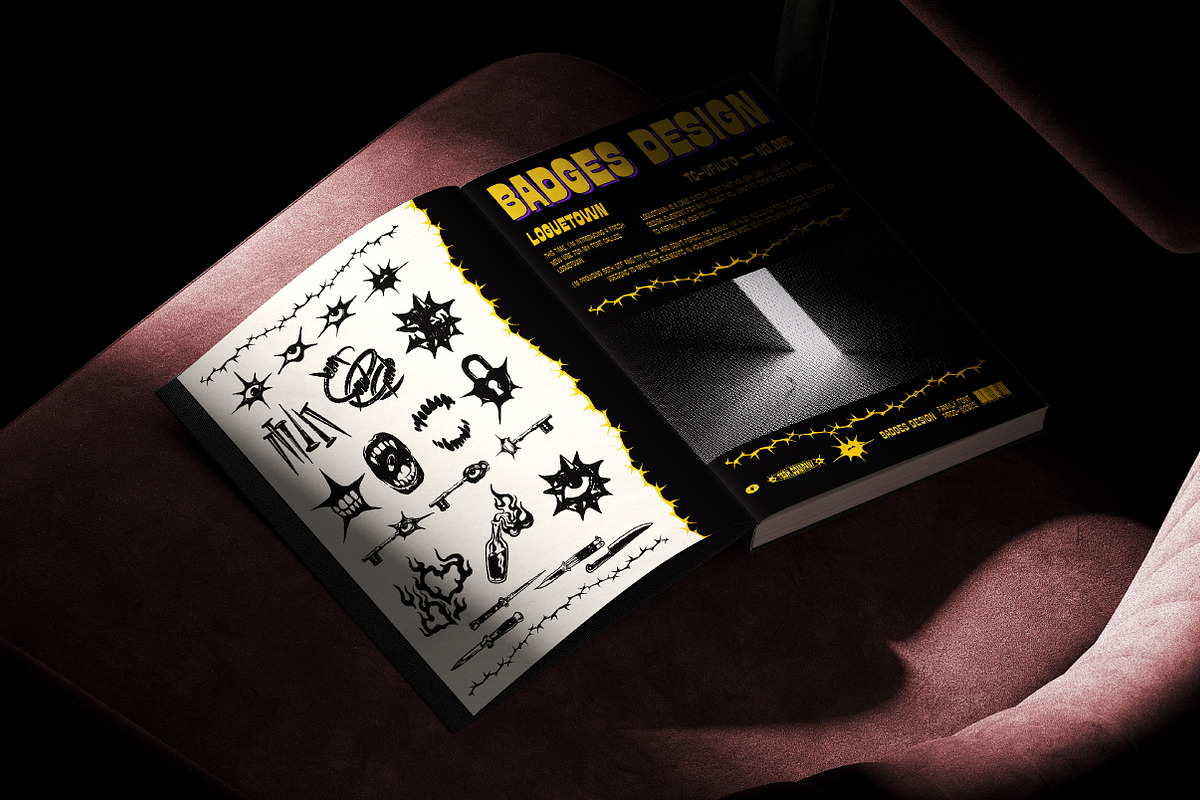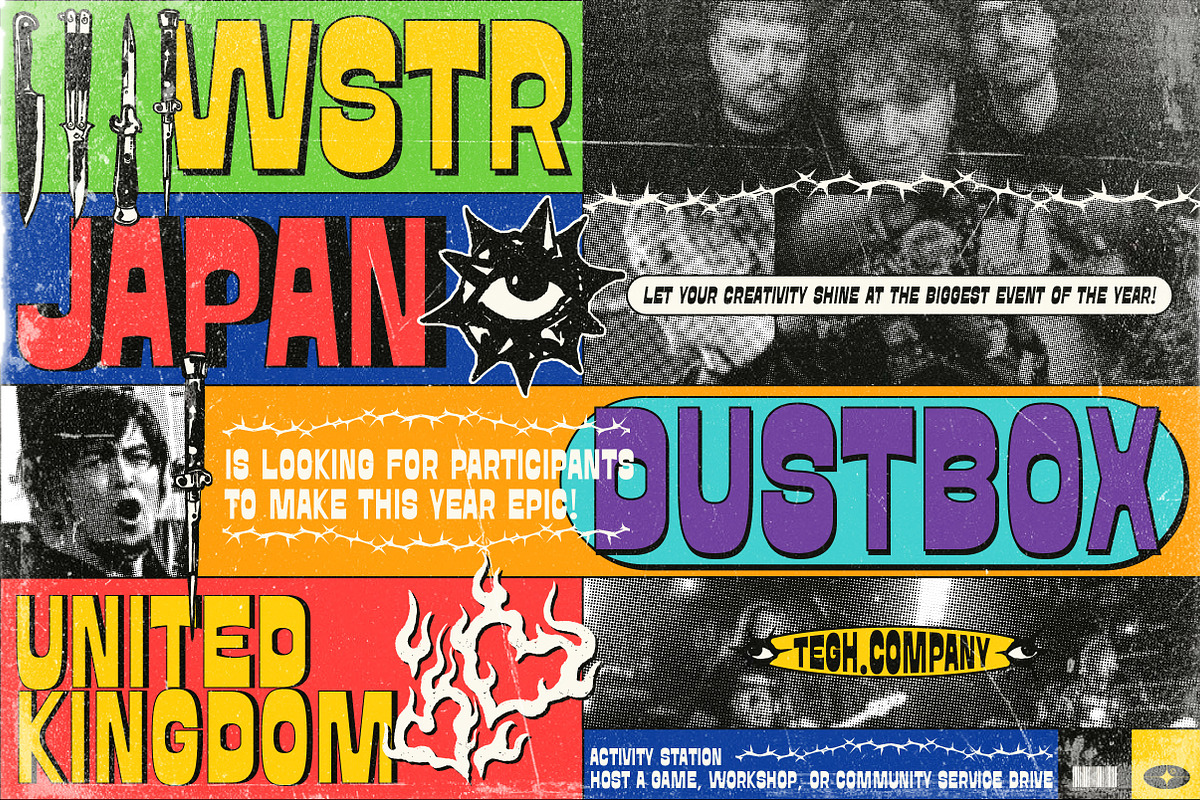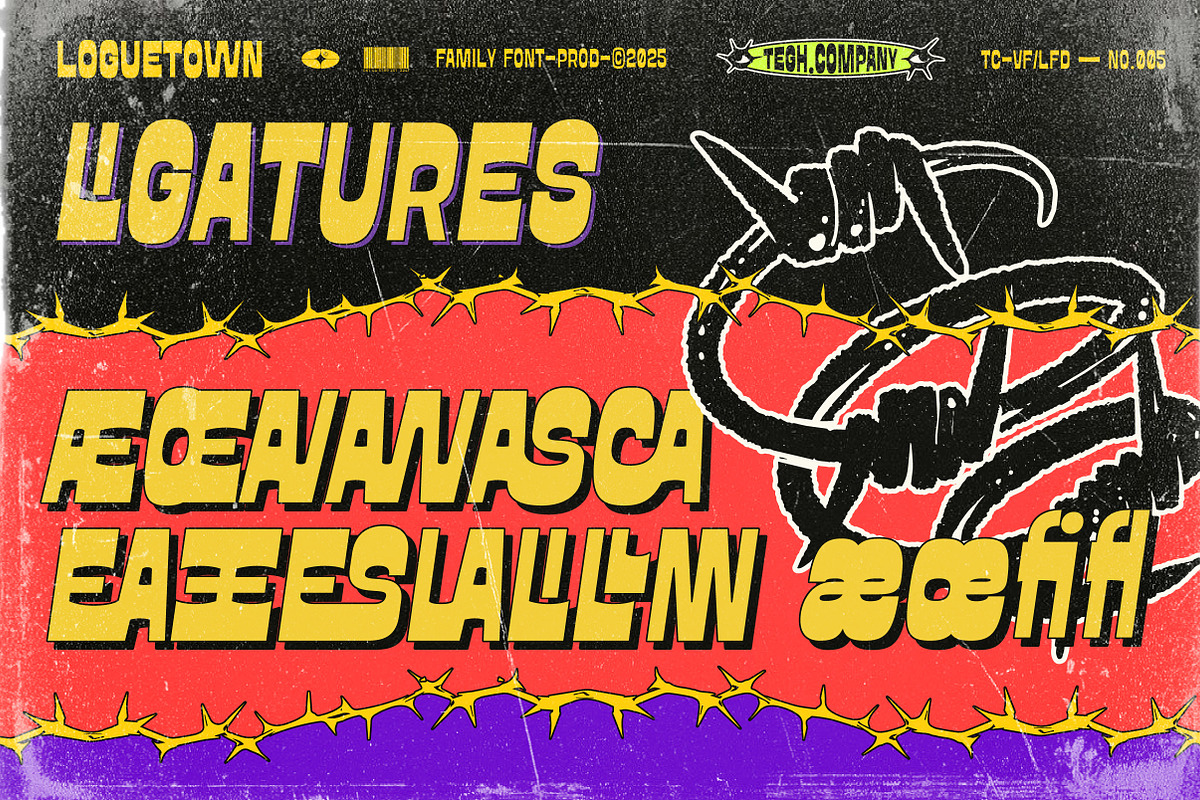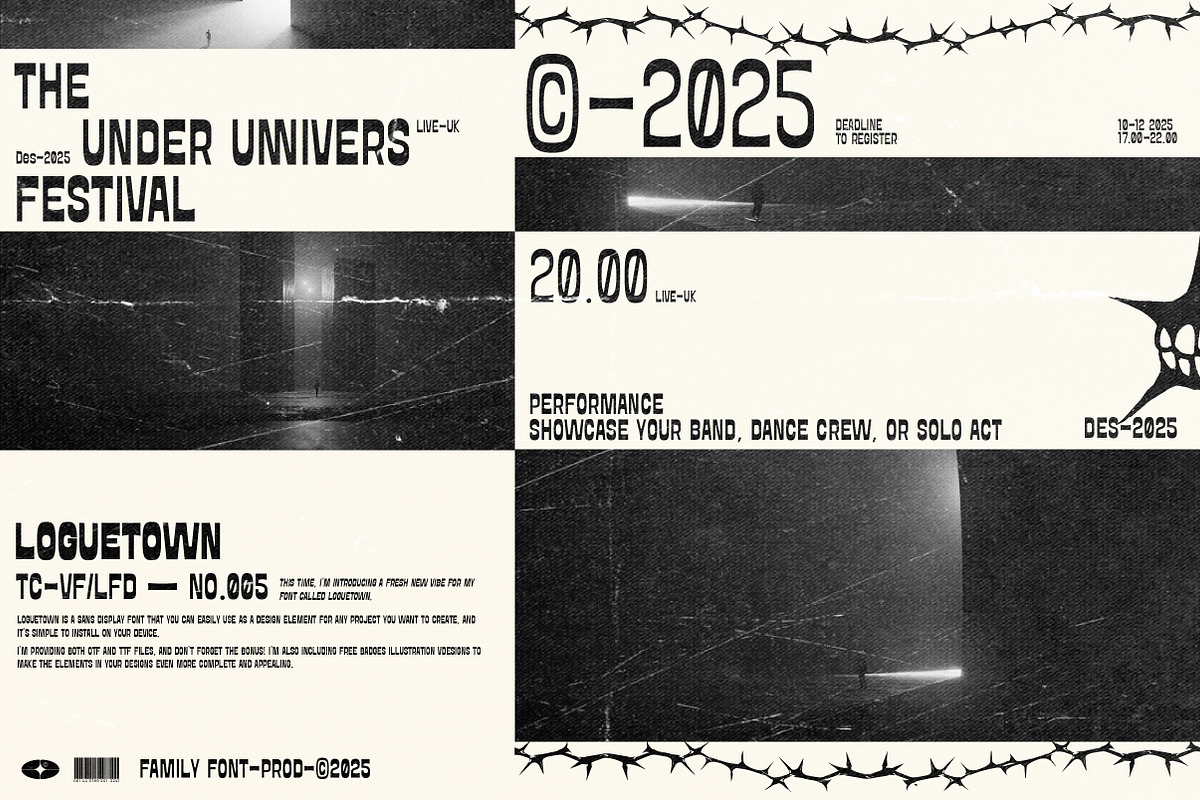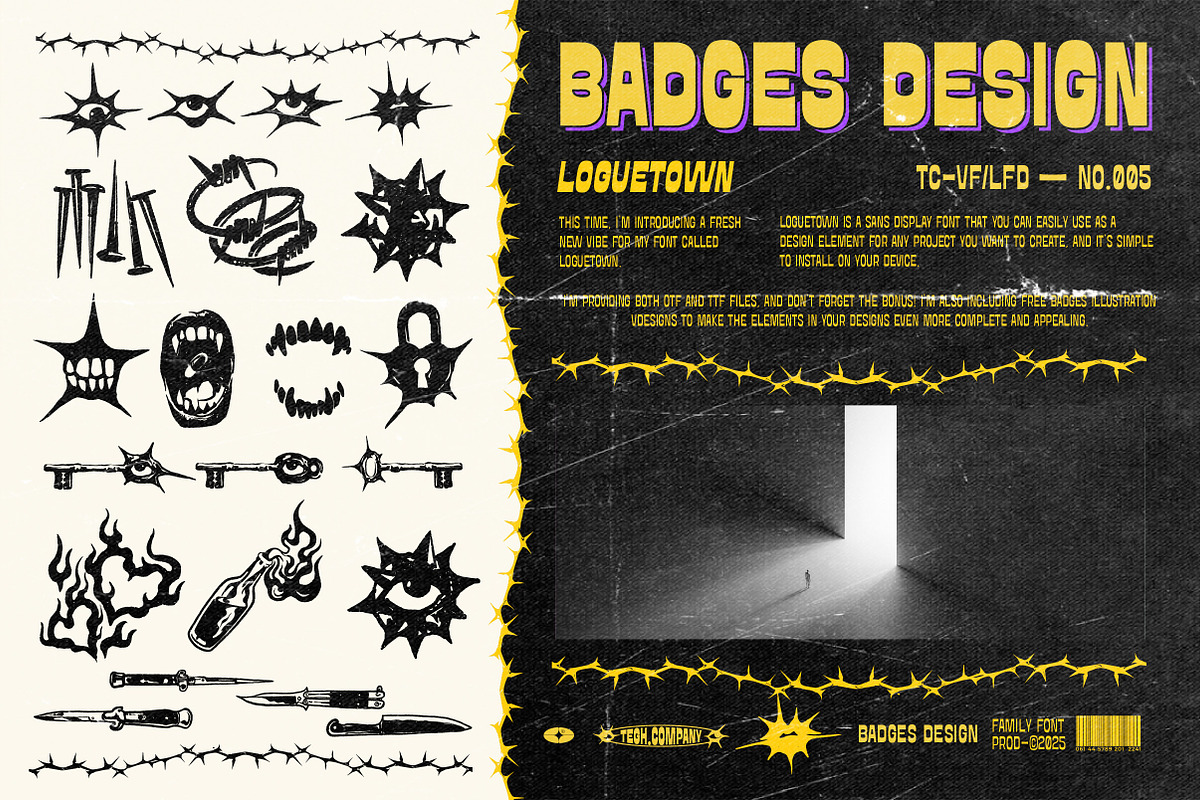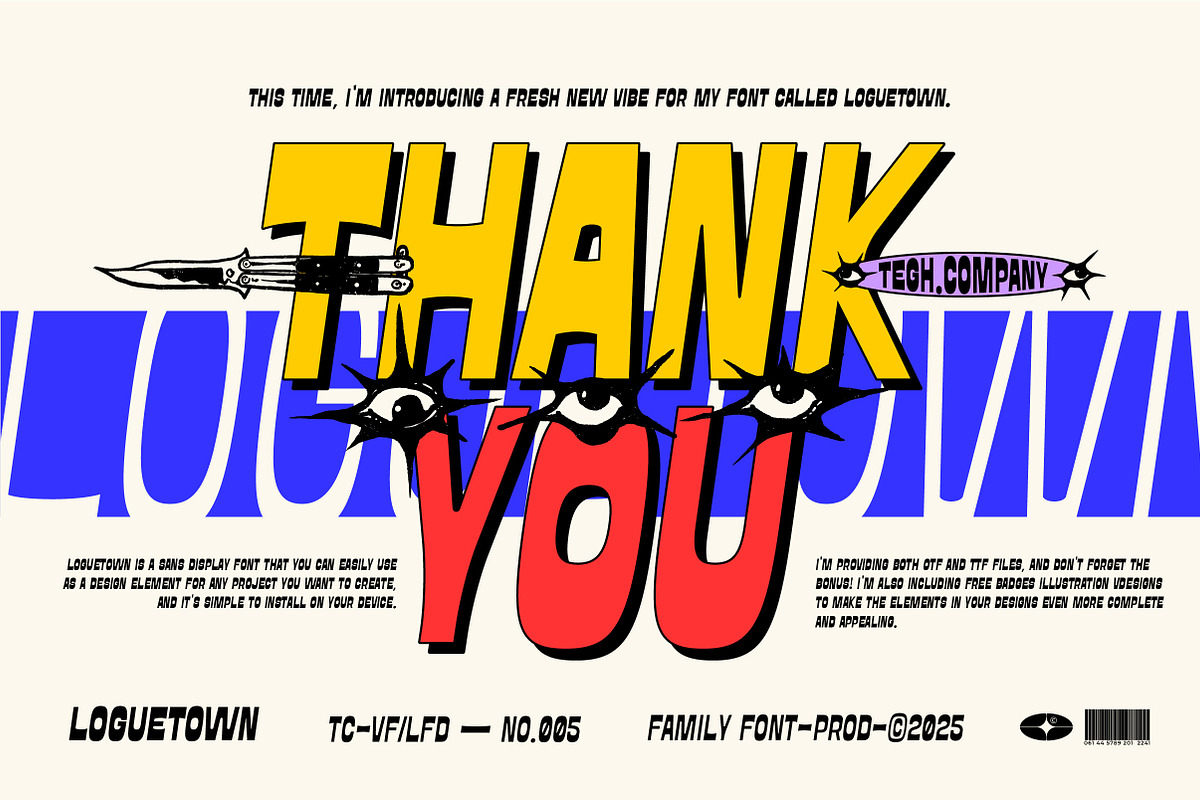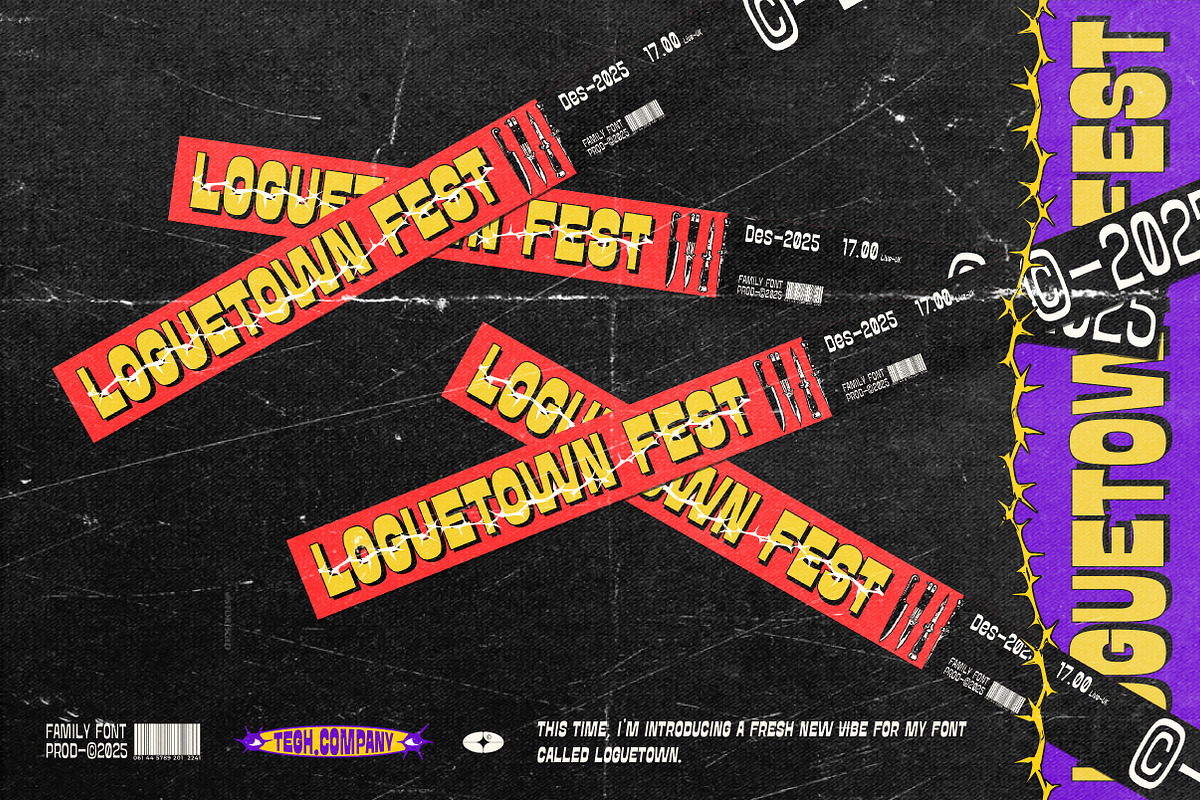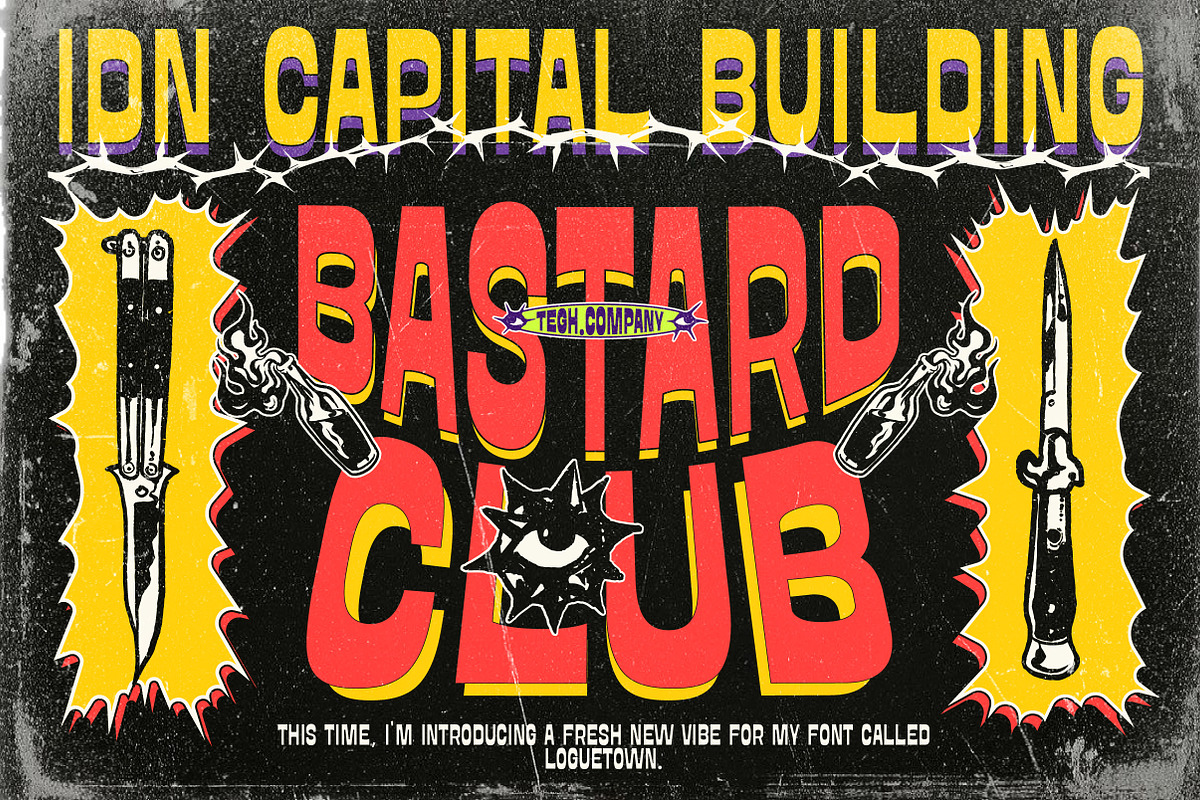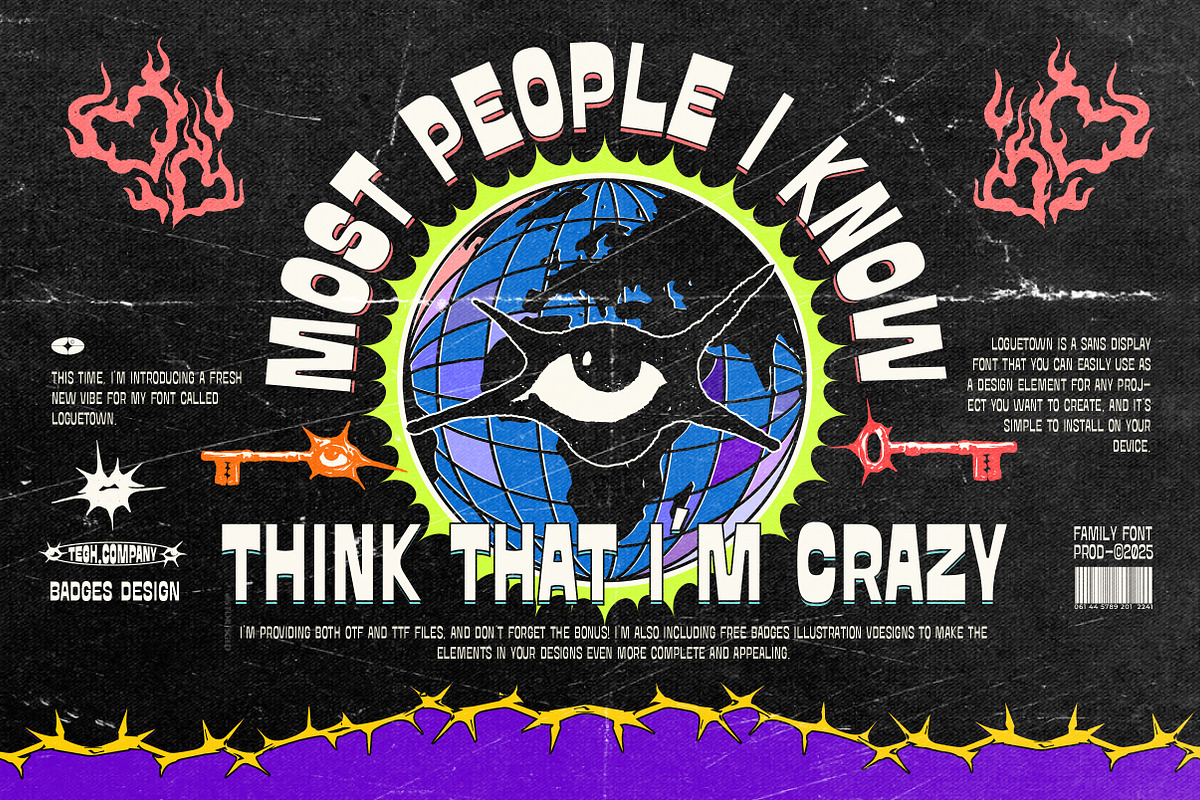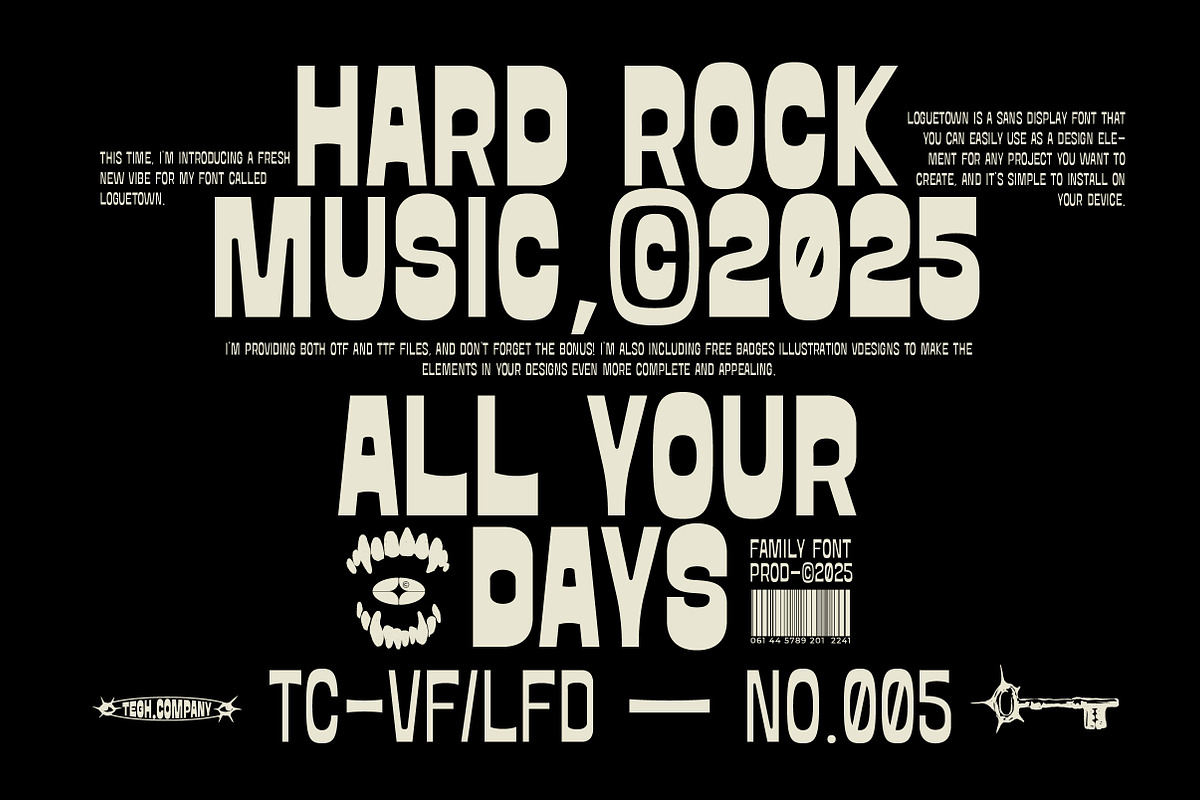
LOGUETOWN SANS DISPLAY
This time, I'm introducing a fresh new vibe for my font called LOGUETOWN.
LOGUETOWN is a sans display font that you can easily use as a design element for any project you want to create, and it's simple to install on your device. I'm providing both OTF and TTF files, and don't forget the bonus! I'm also including free badges illustration vdesigns to make the elements in your designs even more complete and appealing.